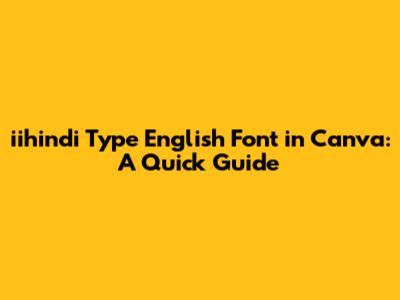
Hey guys! Ever been stuck trying to find that perfect iihindi type English font in Canva? It can be a real pain, right? You're designing away, needing that specific look, and Canva's font library, while extensive, sometimes feels like it's missing just what you need. Well, don't worry; we're diving deep into how to find and use those elusive iihindi-style English fonts to make your designs pop! Finding the right font can be a game-changer. It sets the tone, enhances readability, and brings your creative vision to life. But let's face it, sifting through countless options can feel like searching for a needle in a haystack. That's why this guide is here to help you navigate the world of iihindi type English fonts in Canva with ease. We'll cover everything from identifying what makes a font "iihindi" to searching effectively within Canva and even exploring external resources for unique finds. So, grab your favorite beverage, get comfy, and let's get started on this font-finding adventure! Whether you're working on a social media post, a presentation, or any other design project, having the right font at your fingertips is essential. Let's unlock the secrets to mastering iihindi type English fonts in Canva and elevate your designs to the next level.
Understanding iihindi Type English Fonts
Okay, before we jump into Canva, let's break down what we mean by "iihindi type English fonts." This isn't an officially recognized font category, so it's more about the vibe and characteristics you're looking for. Generally, when people say iihindi type, they might be referring to fonts that have a certain modern, stylish, or even geometric feel. Think clean lines, unique letterforms, and a touch of contemporary flair. It's that kind of font that makes you go, "Wow, that looks sleek!" Essentially, iihindi type English fonts are all about blending modern aesthetics with readability and visual appeal. They're versatile enough to be used in a variety of design contexts, from branding and marketing materials to websites and presentations. The key is to find fonts that capture that essence of sophistication and innovation. Now, why is this understanding important? Because when you're searching in Canva (or anywhere else), knowing the characteristics you're after will help you narrow down your options and identify the fonts that truly resonate with your vision. Instead of blindly scrolling through endless lists, you can focus on fonts that exhibit those key traits: clean lines, unique letterforms, and a modern feel. So, keep this in mind as we move forward, and you'll be well on your way to finding the perfect iihindi type English font for your next project. In the following sections, we'll explore how to translate this understanding into effective search strategies within Canva and beyond.
Searching for Fonts in Canva Effectively
Alright, let's get practical. Canva has a pretty decent font library, but you need to know how to wrangle it. The search bar is your best friend, but generic terms like "modern" or "stylish" might give you thousands of results. To narrow it down, try using more specific keywords related to the characteristics of iihindi type fonts. Think about terms like "geometric," "sans-serif," "minimalist," or "futuristic." Combining these with "English font" can help filter out irrelevant results. For example, try searching for "geometric sans-serif English font." You might be surprised at what pops up! Also, don't underestimate the power of font pairings. Canva suggests font combinations that work well together, which can give you ideas you might not have considered. Play around with different pairings to see how they complement each other. Another trick is to browse through Canva's pre-designed templates. Often, designers use specific fonts in these templates to achieve a certain look and feel. If you find a template that resonates with the iihindi aesthetic you're going for, take note of the fonts used. You can then apply those fonts to your own designs or use them as inspiration for further exploration. Finally, remember to utilize Canva's font filtering options. You can filter fonts by style (e.g., sans-serif, serif), weight (e.g., bold, light), and even language. This can help you quickly narrow down your options and focus on fonts that align with your specific requirements. By mastering these search techniques, you'll be able to navigate Canva's font library with confidence and discover hidden gems that perfectly capture the iihindi type aesthetic you're after.
Exploring External Resources for Unique Fonts
Designing with iihindi Type English Fonts: Best Practices
Alright, you've found your perfect iihindi type English font. Now what? It's not enough to just slap it on your design and call it a day. You need to use it effectively. Think about hierarchy. Use your iihindi font for headings or key phrases to draw attention. Pair it with a simpler, more readable font for body text. This creates visual interest and ensures your message is clear. Pay attention to font size and spacing. Too small, and your font will be illegible. Too large, and it will overwhelm the design. Adjust the letter spacing and line height to create a balanced and harmonious look. Color is also crucial. Choose colors that complement your font and overall design. Consider the contrast between the font color and the background color to ensure readability. Don't be afraid to experiment with different color combinations to find what works best. Also, avoid using too many fonts in a single design. Stick to a maximum of two or three fonts to maintain a cohesive and professional look. Overusing fonts can create a cluttered and confusing design. Finally, always consider your target audience. Choose fonts that are appropriate for your brand and the message you're trying to convey. A playful font might be great for a children's book, but it wouldn't be suitable for a corporate report. By following these best practices, you can ensure that your iihindi type English fonts are used effectively to create visually stunning and impactful designs. Remember, typography is an art, so have fun and experiment until you find what works best for you!
Examples of iihindi Type English Fonts in Canva
Let's get down to specifics! While "iihindi type English fonts" isn't an official category, here are some examples of fonts in Canva that capture that modern, stylish vibe we've been discussing. Raleway is a great option. It's a clean and elegant sans-serif font that works well for headings and body text. Montserrat is another popular choice. It's a geometric sans-serif font that exudes a sense of modernity and sophistication. Lato is a versatile and readable font that can be used in a variety of design contexts. It's clean, simple, and doesn't distract from the overall message. Poppins is a geometric sans-serif font that's perfect for creating a contemporary and minimalist look. Oswald is a classic sans-serif font that's been updated for the digital age. It's bold, impactful, and works well for headlines and titles. These are just a few examples, of course. The best way to find iihindi type English fonts in Canva is to experiment and see what resonates with you. Browse through the font library, try out different combinations, and don't be afraid to get creative! Remember to consider the overall aesthetic you're trying to achieve and choose fonts that align with your vision. With a little bit of exploration, you'll be sure to find the perfect iihindi type English fonts to elevate your designs.
So, there you have it! Finding that perfect iihindi type English font in Canva doesn't have to be a headache. By understanding what makes a font "iihindi," using effective search techniques, exploring external resources, uploading custom fonts, and following best design practices, you can unlock a world of creative possibilities. Remember, typography is a powerful tool that can significantly impact the overall look and feel of your designs. So, take the time to experiment, explore, and find the fonts that truly resonate with you and your brand. Whether you're working on a social media post, a presentation, or a website design, having the right font at your fingertips can make all the difference. So go forth, design with confidence, and create something amazing! And don't forget to have fun along the way. After all, design should be a creative and enjoyable process. Happy designing, everyone!